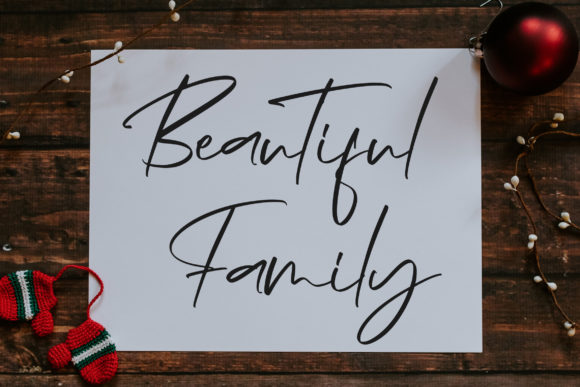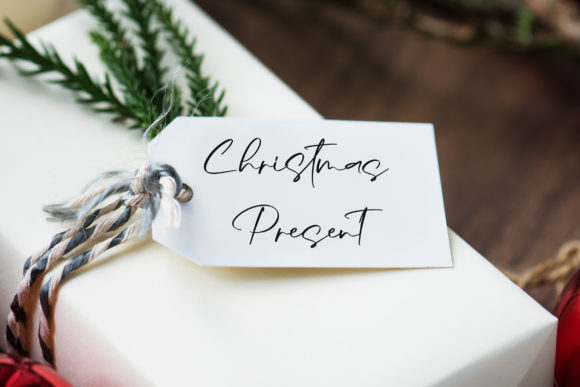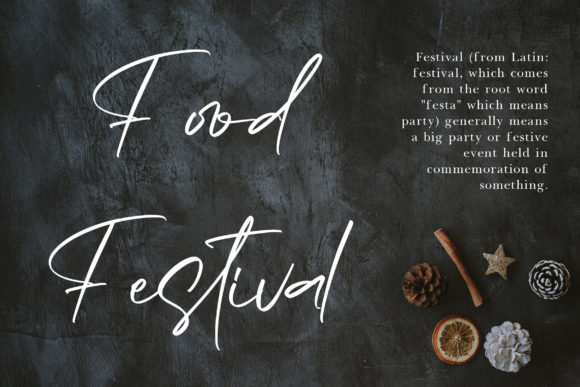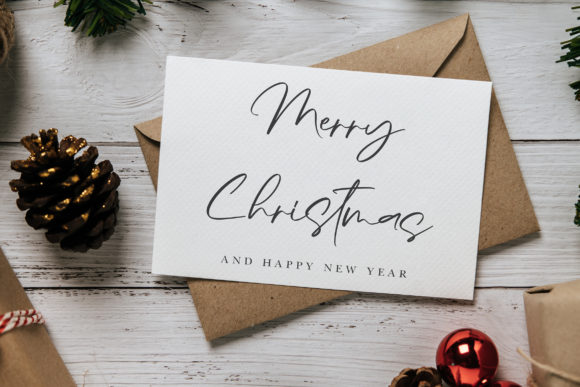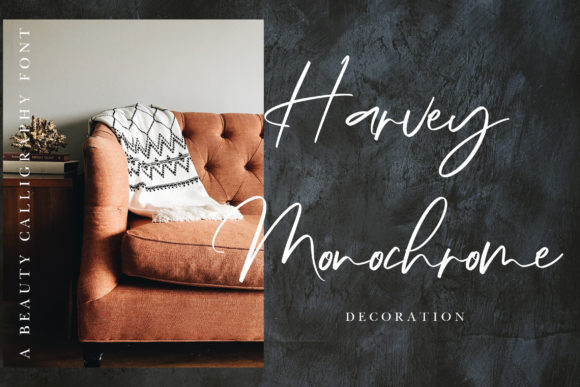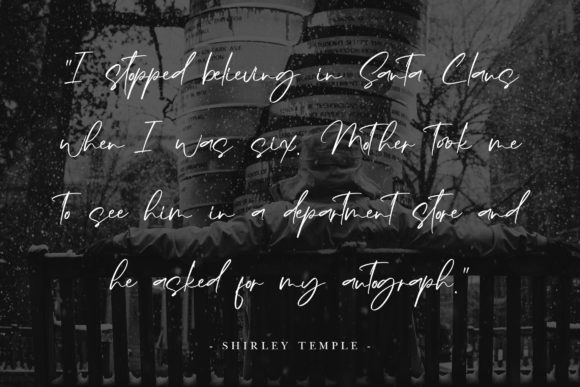
Introduction to Family Prosperity Font
Family Prosperity is an exquisite handwritten font, masterfully designed to become a true favorite.
Key Features of Family Prosperity Font
Why Choose Family Prosperity Font?
Family Prosperity Font offers exceptional quality and versatility, making it a valuable addition to your design toolkit. Whether you’re creating for personal projects or commercial use, Family Prosperity Font delivers professional results.